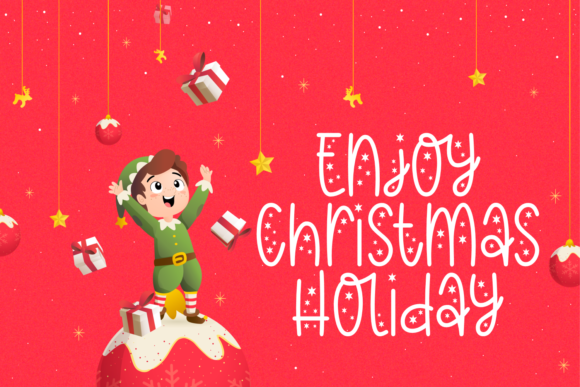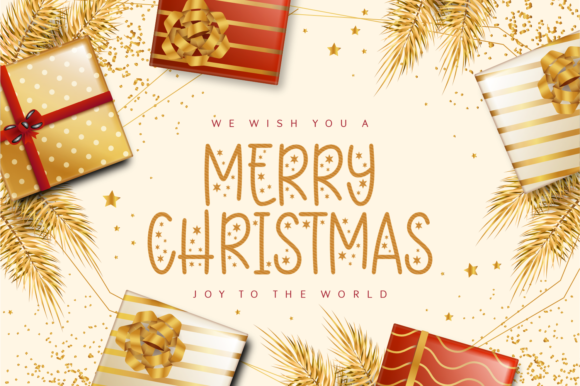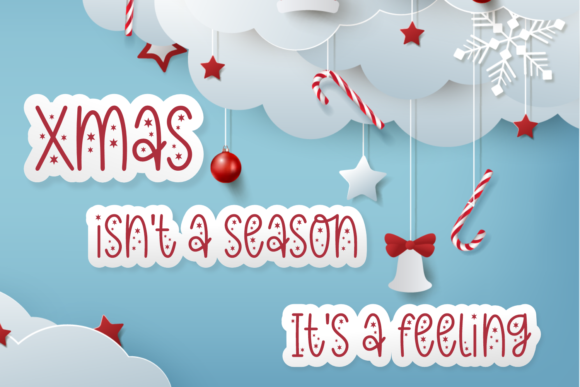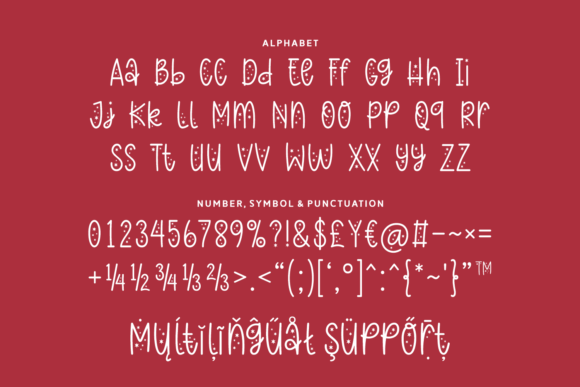
Introduction to Live Your Story Xmas Font
Live Your Story Xmas is a starry handwritten font.
This creative typeface features star details on each character Grab it now and create Christmas cards, signs, quotes, posters, sales banners, packaging, etc.
Why Choose Live Your Story Xmas Font?
Live Your Story Xmas Font offers exceptional quality and versatility, making it a valuable addition to your design toolkit. Whether you’re creating for personal projects or commercial use, Live Your Story Xmas Font delivers professional results.